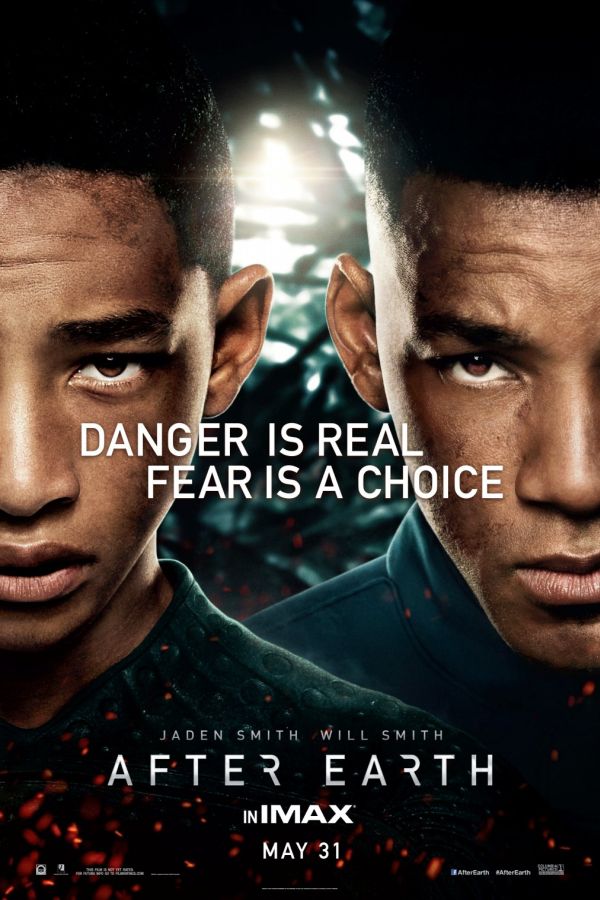
After Earth Font
AdventureAfter Earth is a 2013 sci-fi film with Will Smith and his son Jaden Smith. They crash-land on Earth and must survive dangerous wildlife and environment in a future where humanity has abandoned the planet.
The movie title on the poster uses FF Din Medium font with a slightly modified letter "R". This is a realist sans serif font created by Albert-Jan Pool in 1995. Further information about the typeface is available here.